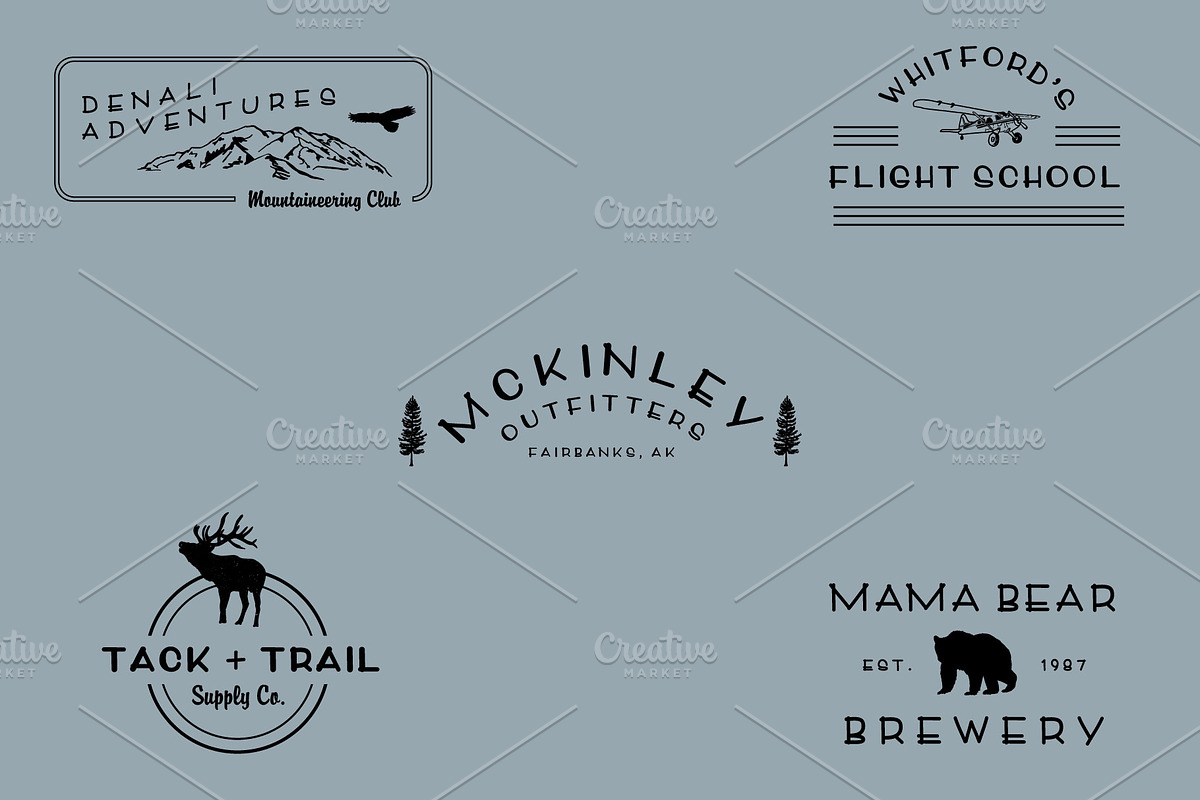
Denali Font, Illustrations, & Logos!
DENALIA hand drawn display font inspired by one of the great National Parks of the USA
A little retro, a little organic, Denali font evokes the endless skies and ranges of the great Alaskan wilderness and the park that lives within.
This font is also used in the logos: